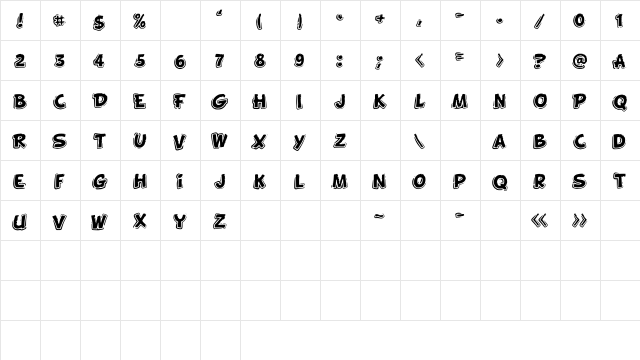
FunnyKid Medium Font Preview
FunnyKid Medium
FunnyKid Medium Font Details
Design Context for FunnyKid Typeface
FunnyKid has an approachable, lighthearted character — its loose, expressive forms are well-suited to children's content, casual branding, and fun-first design.
Well-suited to food and beverage brands with personality, educational materials, and fun-forward identities.
Font Pairing: Pairs well with a rounded or humanist sans for body copy, maintaining the friendly tone without relying on FunnyKid to carry extended reading.
Pro Tip: Use FunnyKid at larger display sizes where its expressive character can land. Pair with a clean, simple sans for body copy to maintain readability.